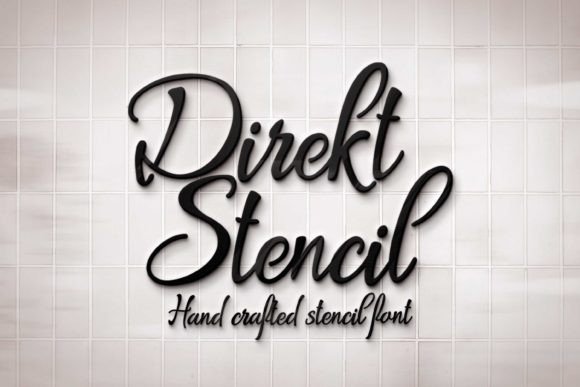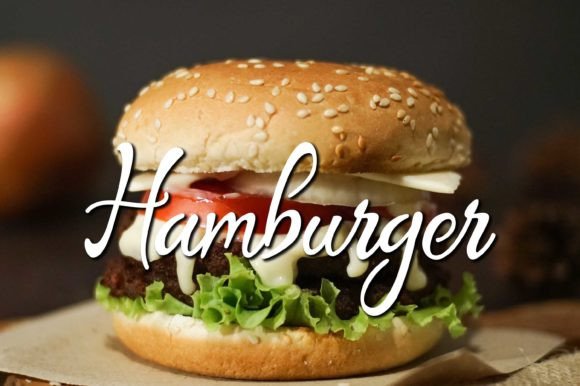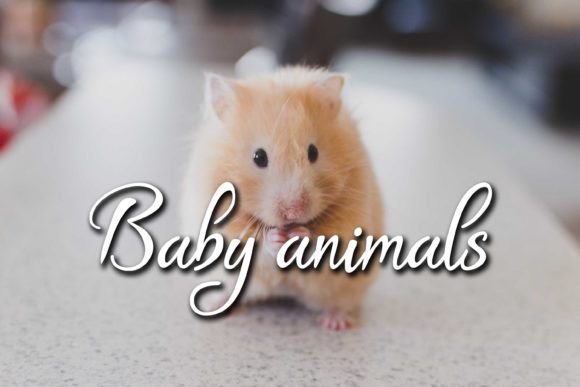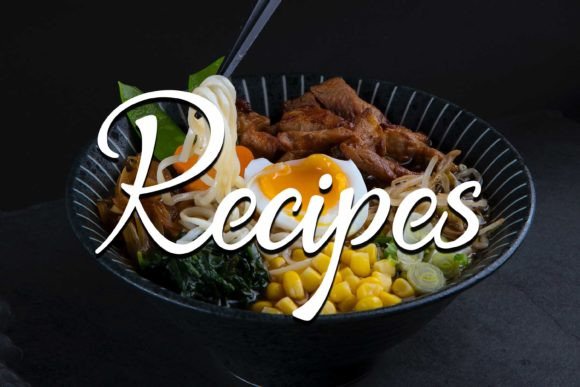
Direkt Stencil Font: Elegant Script for Wedding Invitations & Logo Design
About the Direkt Stencil Font
From logos to headlines, the Direkt Stencil Font is the perfect choice for making a lasting impression. Direkt Stencil is a an elegant script font with neat characters. It looks stunning on wedding invitations, thank you cards, quotes, greeting cards, logos, business cards and every other design which needs a handwritten touch.
Direkt Stencil’s elegant yet informal style makes it ideal for branding projects needing a handcrafted feel, particularly logos, short headlines, and packaging design where a touch of personality is desired. It also excels in creating visually appealing quotes and short text-based elements within larger designs. However, its script nature and relatively thin strokes make it unsuitable for body text or lengthy paragraphs, and its legibility suffers at smaller sizes, making it less effective for UI applications.
For optimal visual harmony, pair Direkt Stencil with a clean sans-serif like Montserrat or Lato for a modern contrast, or a classic serif such as Garamond or Playfair Display for a more traditional feel. A geometric sans-serif, such as Futura, could also work well to create a balanced and sophisticated aesthetic.
The font’s personality is best described as sophisticated yet approachable; refined but friendly. It projects an air of elegance without being overly formal, making it a versatile choice for brands aiming for a balance of style and approachability.
Direkt Stencil Font Usage Examples
Direkt Stencil Font Example